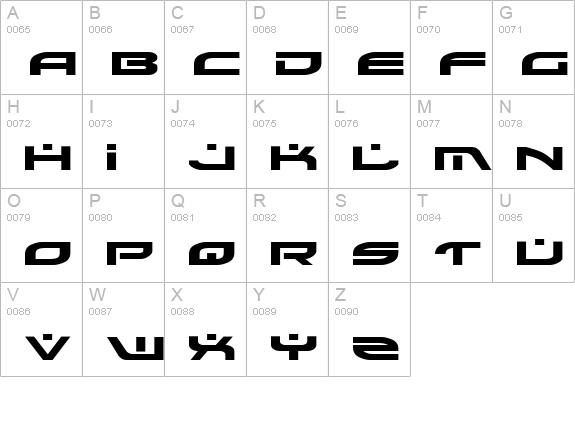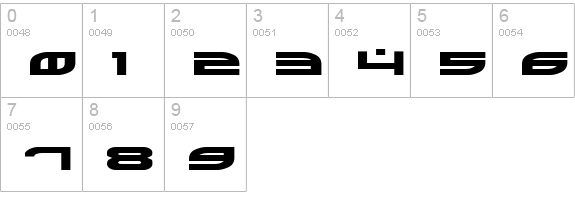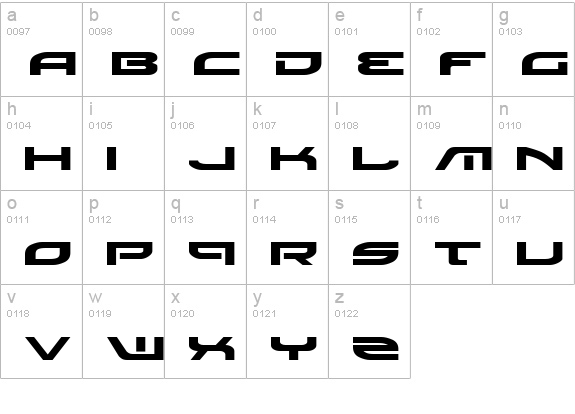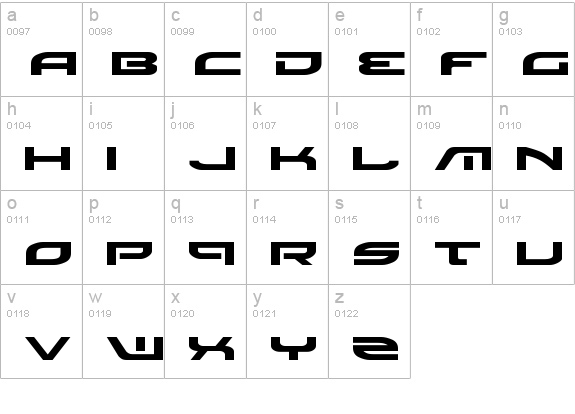
Battlefield Expanded is a distinctive, extended-width variant in the Battlefield typeface family \xE2\x80\x94 well suited to design and typography projects.
Battlefield Expanded is a bold and impactful font that commands attention with its strong and angular letterforms. Designed for eye-catching headlines and bold statements, this font exudes a sense of strength and power. The extended width of the characters gives it a modern and dynamic look, making it perfect for conveying a sense of urgency or importance in your designs. Best of all, Battlefield Expanded is available for free download at FontsMarket.com. This means you can easily add this striking font to your collection without any cost, making it a great choice for designers looking to enhance their projects with a powerful and impactful typeface. So why wait? Download Battlefield Expanded today and take your designs to the next level.